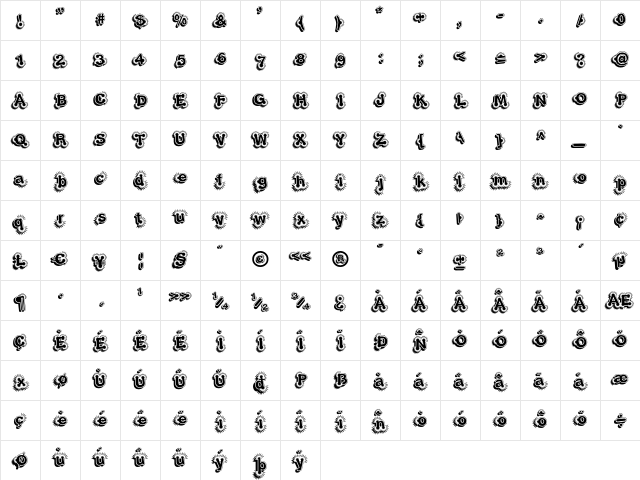
ElliottsJigsawDropshadow Regular
Design Context for ElliottsJigsawDropshadow Typeface
ElliottsJigsawDropshadow brings ornamental detail and strong personality to headlines and identities, where visual impact matters more than quiet functionality.
Font Pairing: Pair with a clean neutral sans-serif for body copy to let ElliottsJigsawDropshadow's character lead without overwhelming the composition.
Pro Tip: Use ElliottsJigsawDropshadow exclusively at display sizes — it was designed to be seen, not read at length. Let a neutral companion handle body copy.